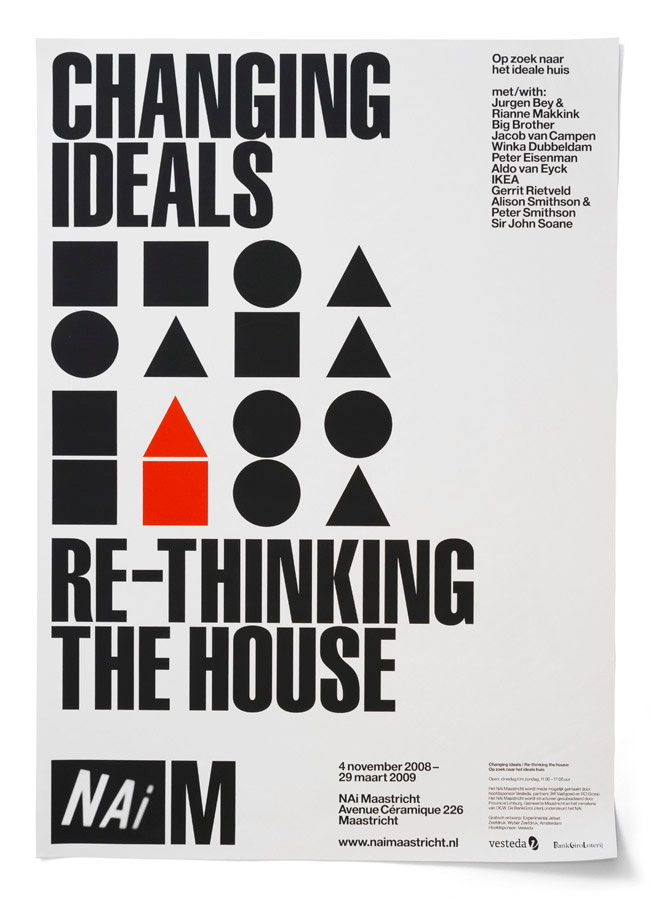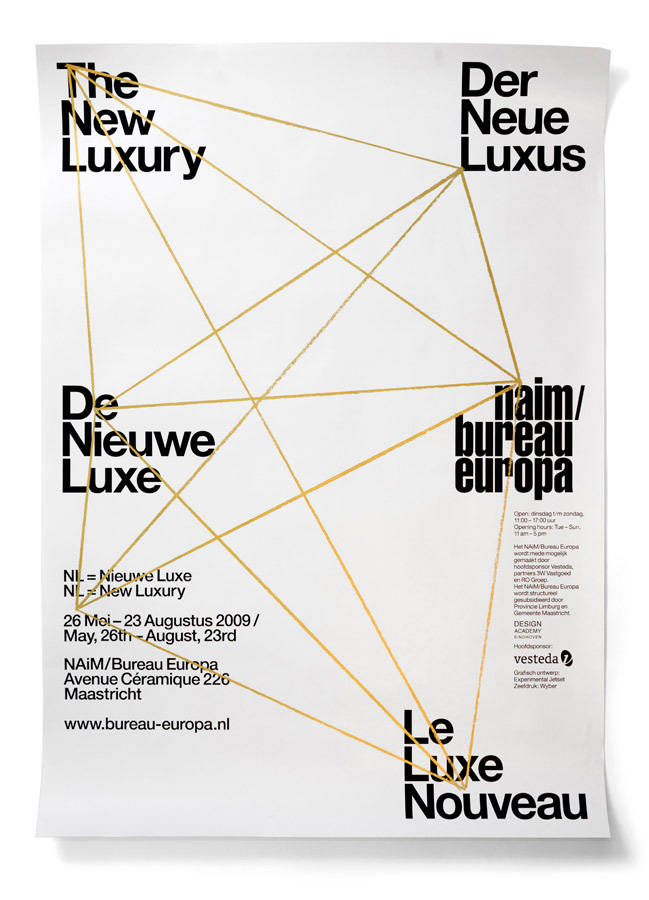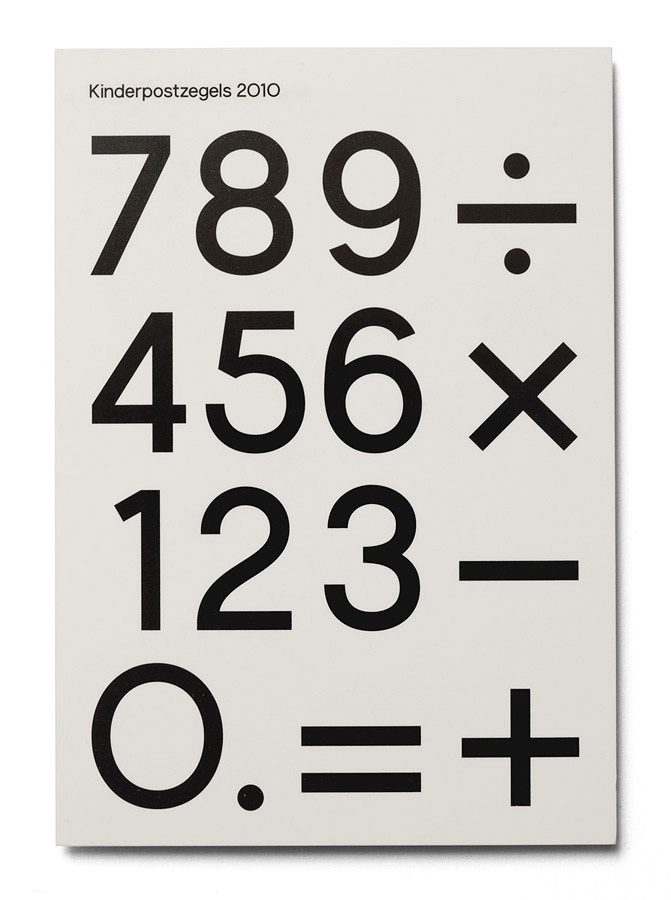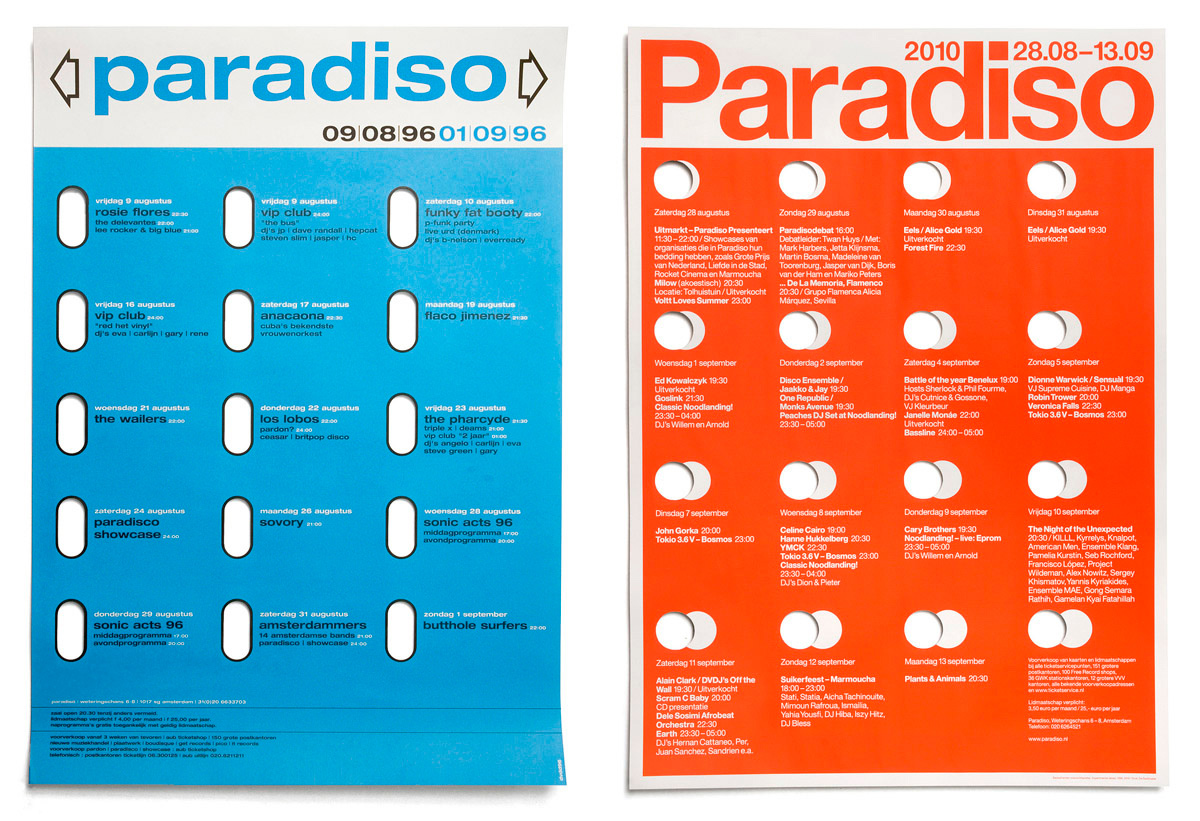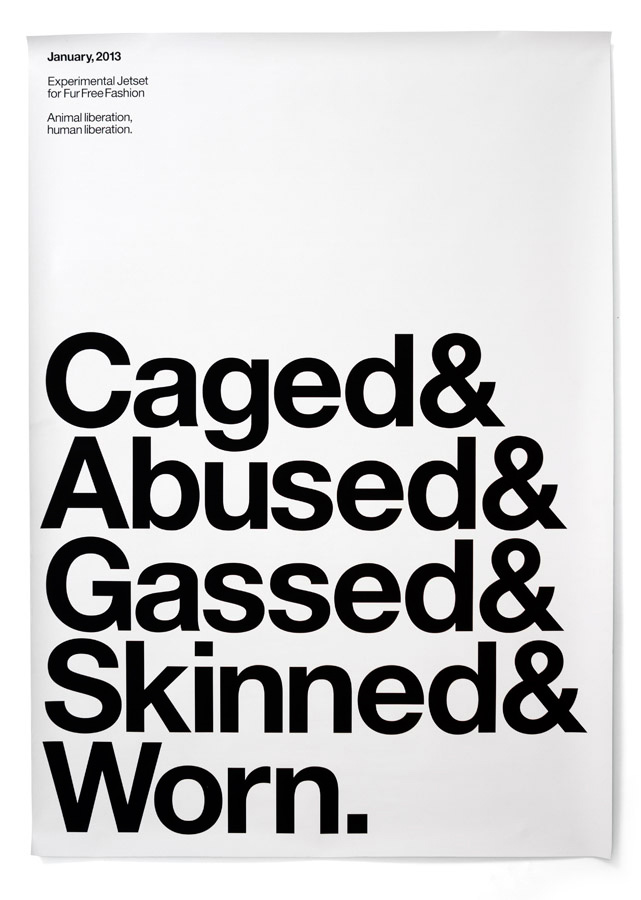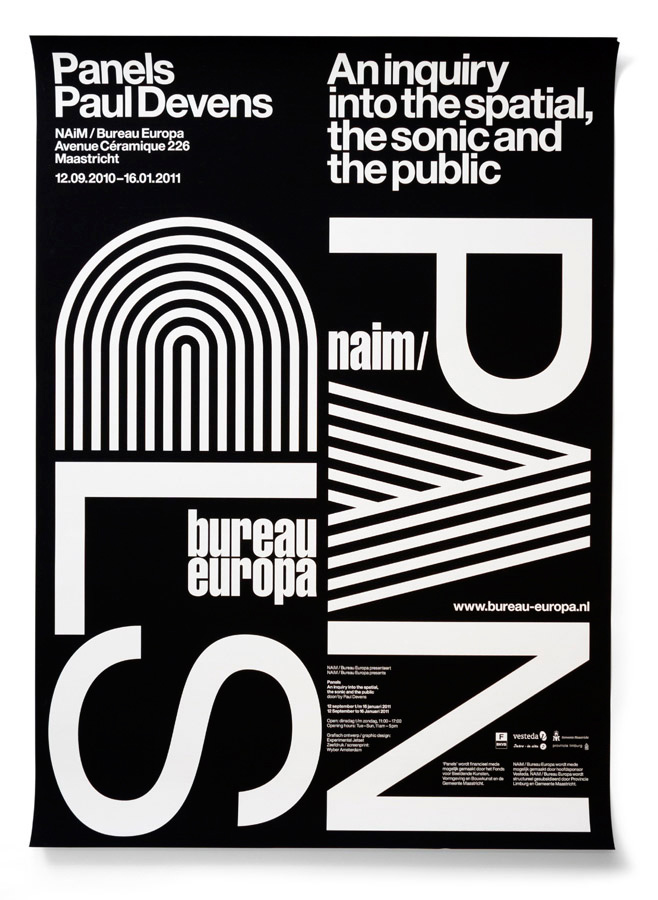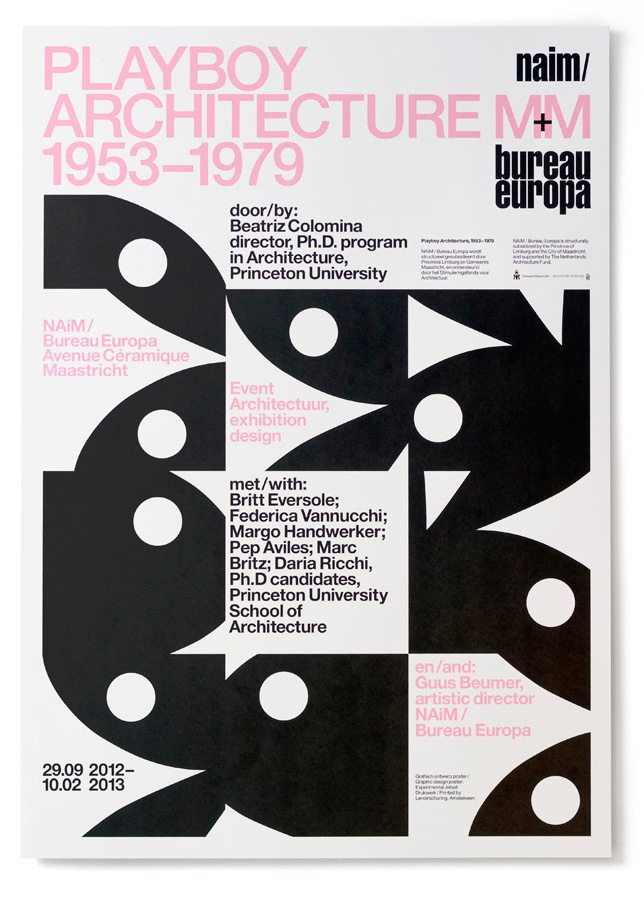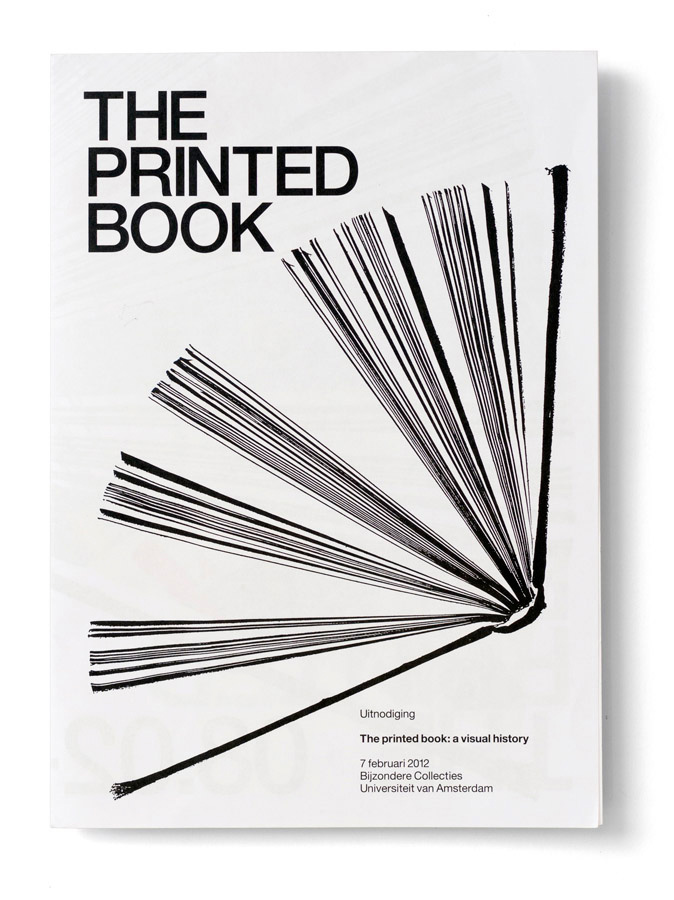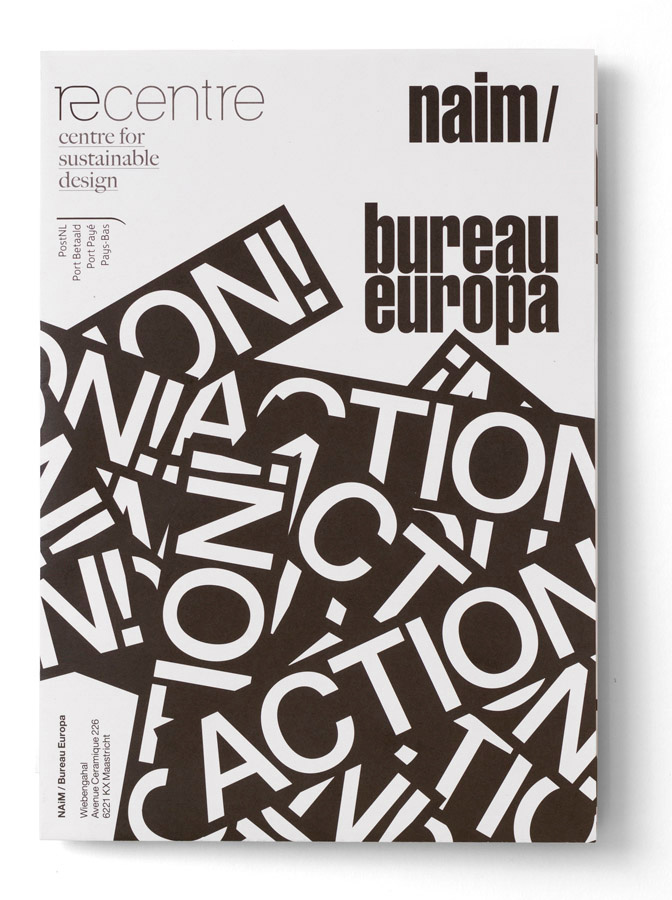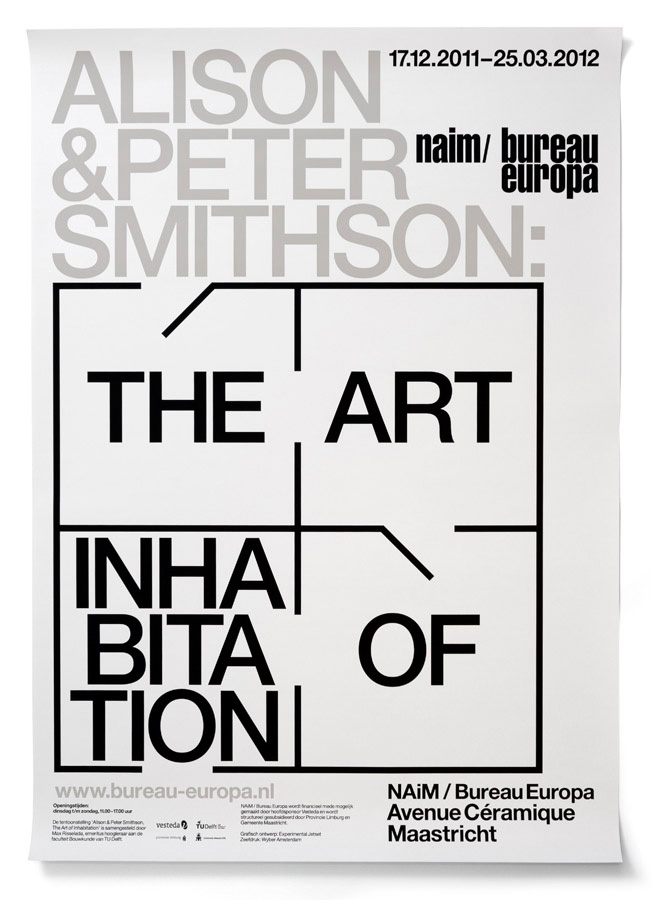
This is why Experimental Jetset is a living part of typographic history
Zang! Tumb Tumb
Consisting of Marieke Stolk, Erwin Brinkers and Danny van den Dungen this small, independent, Amsterdam-based graphic design studio was established back in 1997. The trio, who met and collaborated during their studies at the Gerrit Rietveld Academy formed Experimental Jetset and since the beginning of their adventures in the world of the letters, they decided to focus on printed matter and site-specific installations. Best known for their typographic solutions have completed projects as diverse as the new graphic identity for the Whitney Museum of American Art (2013), to the iconic ‘John & Paul & Ringo & George’ t-shirt print (2001).
“We want our work to become a part of reality, not an imitation of it”
Although they describe their work as “scavenging the ruins of Modernism”, Experimental Jetset’s graphic design output belongs to our times. Conscious “of its origins and place in design history” they see their work as an archive of influences. From the iconic poster by Dutch cartoon artist Bernard Willem Holtrop with a reversed lower case “A” that inspired the trio for its “sharp and clear design but contrarian element”, through the No Wave post-punk sub-culture that sprung up in New York City in the late 1970s and early 80s to the relationship between pop culture and the avant-garde – exemplified, for example, by the record sleeve of The Beatles’ White Album designed by pop artist Richard Hamilton in 1968, everything is an inspiration.
Whitney Graphic Identity
“For us, a fascination with graphic design started with stuff like record sleeves, music magazines, fanzines and band t-shirts”, says Van den Dungen. “That got us interested in graphic design in the first place and I think a lot of the work that we do is still related to that. There is always this sense that we referring to those groups or movements.” Provo was just one of them. The Dutch counterculture movement, which Stolk’s father was a founding member of was focused on provoking violent responses from authorities using non-violent action and it was a family issue for her. After all, “since mainstream printers did not want to print the subversive material of the movement, activism forced her father to become a printer.”
Although they have become synonymous with the use of Helvetica, Stolk wants to set the record straight. “We actually hate Helvetica”, she says.
Owing a huge debt to Dutch graphic designers such as Wim Crouwel and other influential thinkers and visual disruptors alike (French Marxist theorist Guy Debord, Italian artist Lucio Fontana, French film director Jean-Luc Godard or Stanley Kubrick’s “relentless merciless aesthetic”), Experimental Jetset are not interested in reproducing reality. “We want our work to become a part of reality, not an imitation of it” they say. “We try to make the viewer aware of the reality of representation by revealing the methods of reproduction and of printing”.
The Printed Book
Obsessed with details, with an almost “neurotic desire to control even the smallest elements in our work for better or for worse” Experimental Jetset porftolio is influenced by their involvement as teenagers in the 1980s with the “post-punk sub-cultures such as New Wave, Psychobilly, 2 Tone and Mod”, notes Brinkers. And although they have become synonymous with the use of Helvetica typeface Stolk wants to set the record straight. “We actually hate Helvetica”, she says. “If anything we see it as more of a natural tone of voice as part of our everyday vocabulary. We are not the sort of actors who speak in a different voice or put on another mask every time we play another role”, she explains. “We basically signed our own death sentence – in Helvetica obviously!” she commented on their appearance in Gary Hustwit’s documentary about the over popular font. Maybe the fact that the Museum of Modern Art in New York acquired back in 2007 a large selection of their work in 2007 for inclusion in the museum’s permanent collection will make you acknowledge that Experimental Jetset are a living part of today’s typographic history but that is merely an understatement.